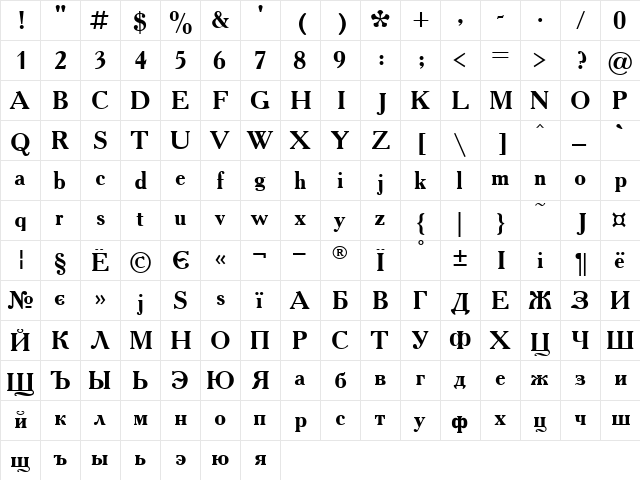
Academy Bold Font Preview
Academy Bold
Design Context for Academy Typeface
Academy offers clean, dependable letterforms without strong stylistic allegiance, making it a practical choice for designers who need flexibility. The heavy weight commands attention and anchors typographic hierarchies.